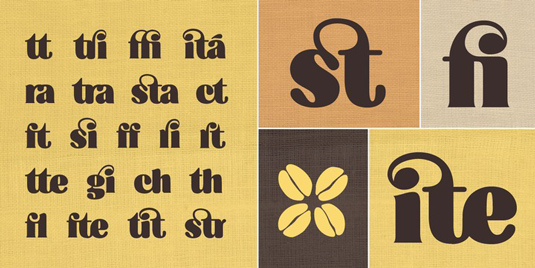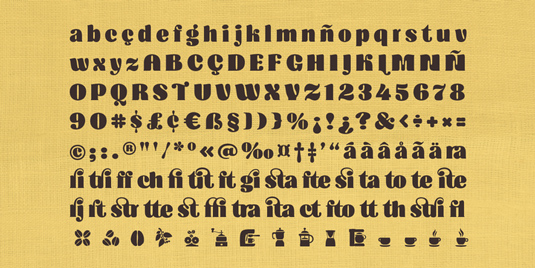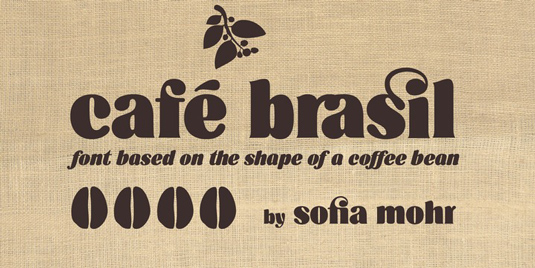
Font of the day: Cafe Brasil
Cafe Brasil by Sofia Mohr
The design of today's font of choice, Cafe Brasil by Sofia Mohr, was based on the shape of a coffee bean. It was created to represent coffee, especially for use in packaging, brand titles, logos and menus. "Café Brasil has delicate details and ligatures that represent the liquid, foam and steam of a good cup of coffee," Mohr comments.